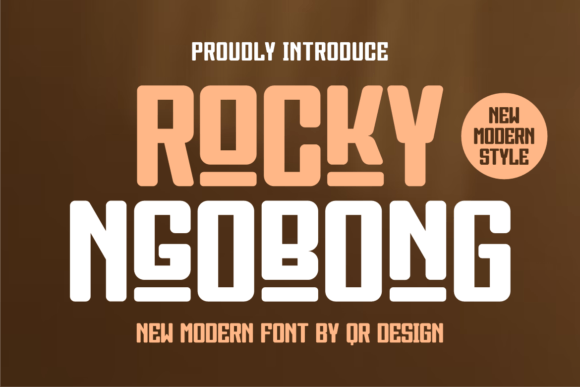
Embark on a typographic voyage with Rocky Ngobong Font, a bold and authentic display font poised to elevate your branding projects to new heights. Crafted meticulously by qrdesignstd, this remarkable font boasts a striking presence that commands attention, leaving an indelible impression on your audience.
Unleash your creativity with Rocky Ngobong Font, a versatile masterpiece ideally suited for a myriad of branding endeavors. Whether you seek to create a captivating logo, design eye-catching t-shirts, or produce impactful sports-themed graphics, this font is your ultimate companion. Its bold strokes and distinct character lend an air of sophistication and professionalism to any project.
Picture this: your brand's logo, emblazoned with the Rocky Ngobong Font, exudes strength and confidence, leaving a lasting impression on potential customers. Imagine your t-shirt designs, featuring witty slogans and vibrant graphics, popping with personality thanks to this font's eye-catching presence. Envision your sports-related designs, infused with a dynamic energy, capturing the essence of competition and teamwork. The possibilities are boundless with Rocky Ngobong Font.
Immerse yourself in a world where typography meets artistry, where fonts become more than just letters on a page. Rocky Ngobong Font transcends the ordinary, captivating your audience with its bold and authentic style. Its versatility shines in a myriad of contexts, from elegant invitations and captivating posters to striking social media graphics and thought-provoking presentations.
Embrace the power of Rocky Ngobong Font, a font that ignites imagination and fuels creativity. Let your designs soar to new heights, captivating your audience and leaving them in awe. Experience the transformative power of typography, where fonts become an integral part of your brand's identity, conveying your message with impact and resonance.
Step into the spotlight with Rocky Ngobong Font, the font that empowers you to make a statement, to communicate with passion, and to leave an imprint that lingers long after your audience has turned the page. Unleash the potential within your branding projects and watch as they flourish with the undeniable charm and charisma of Rocky Ngobong Font.